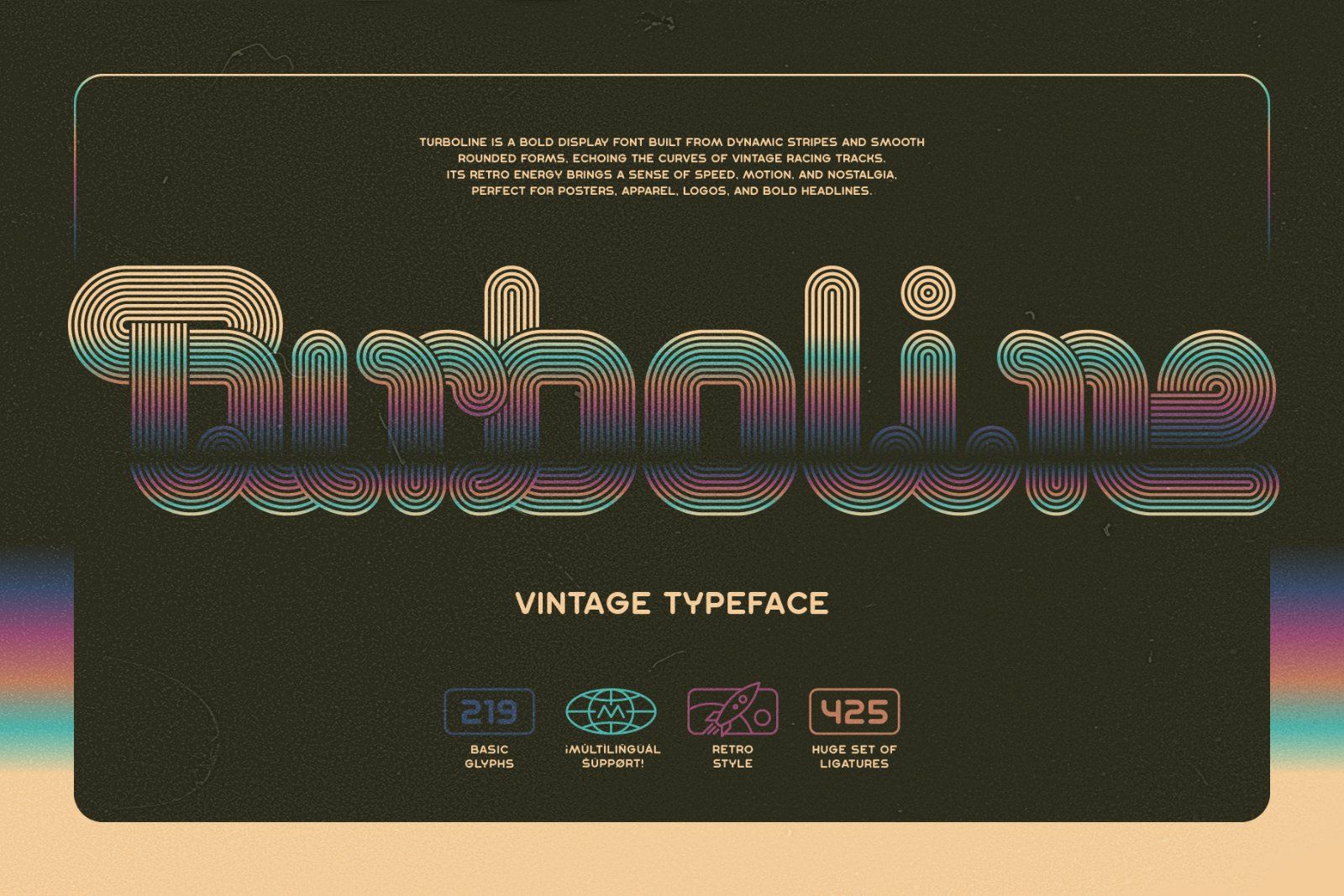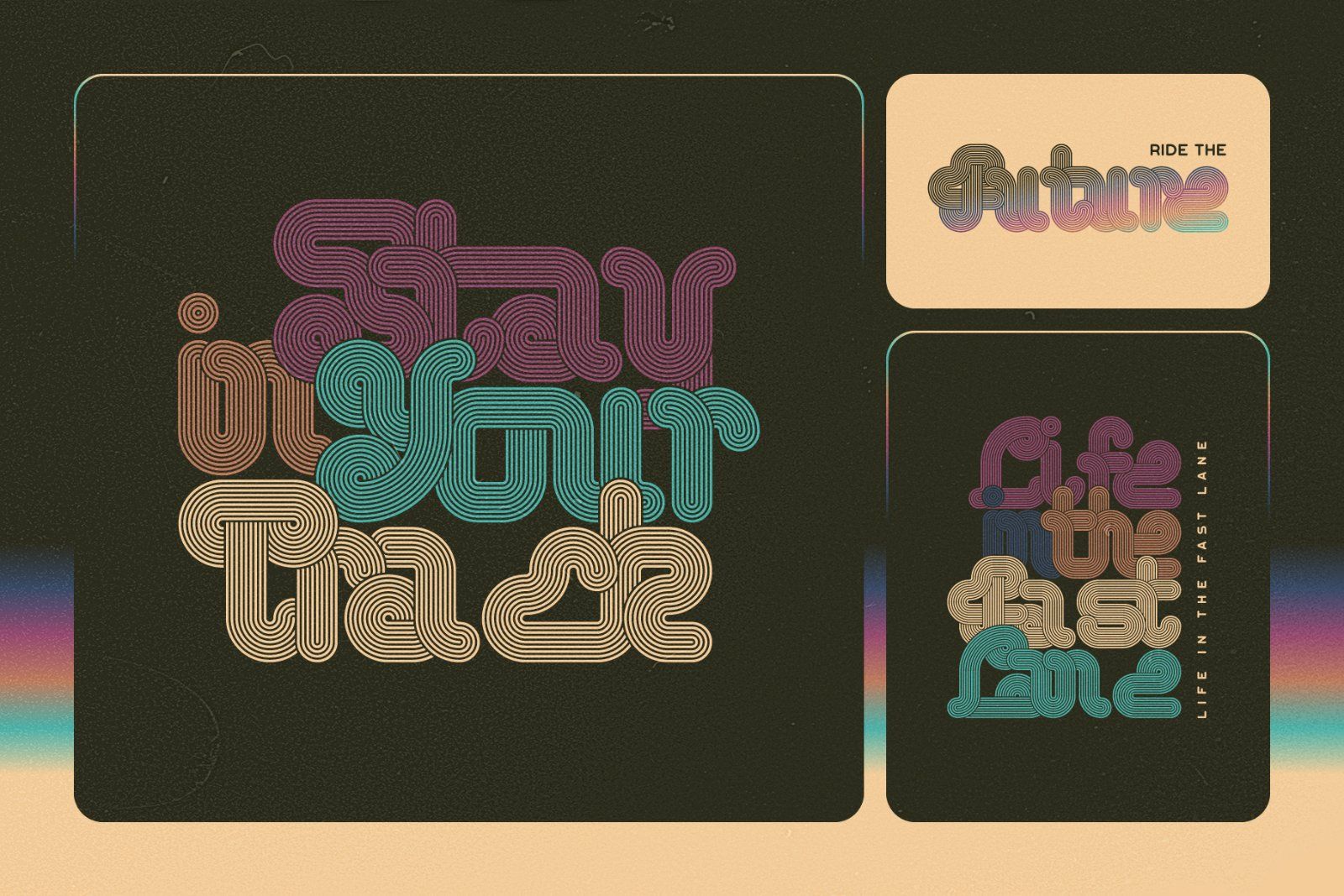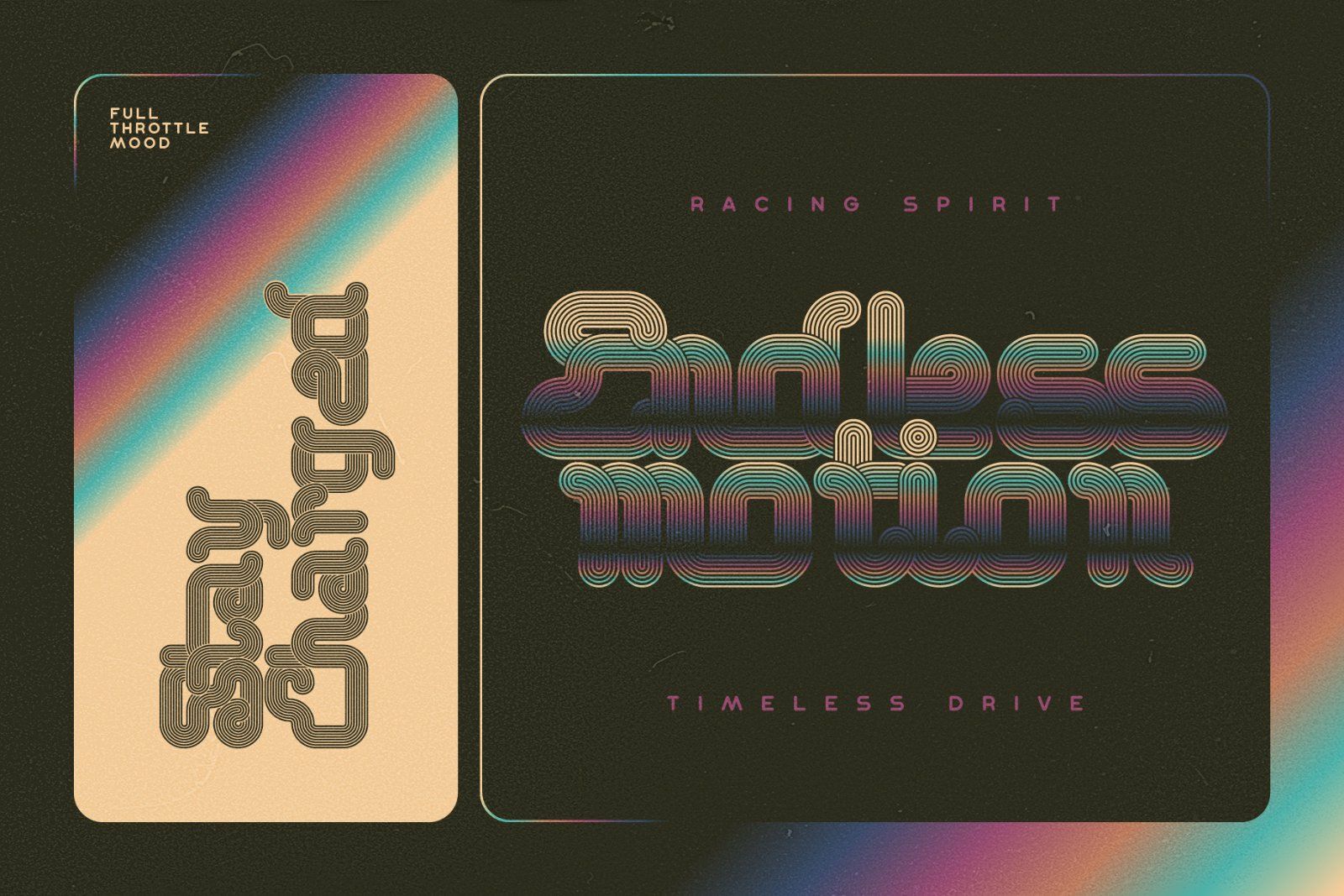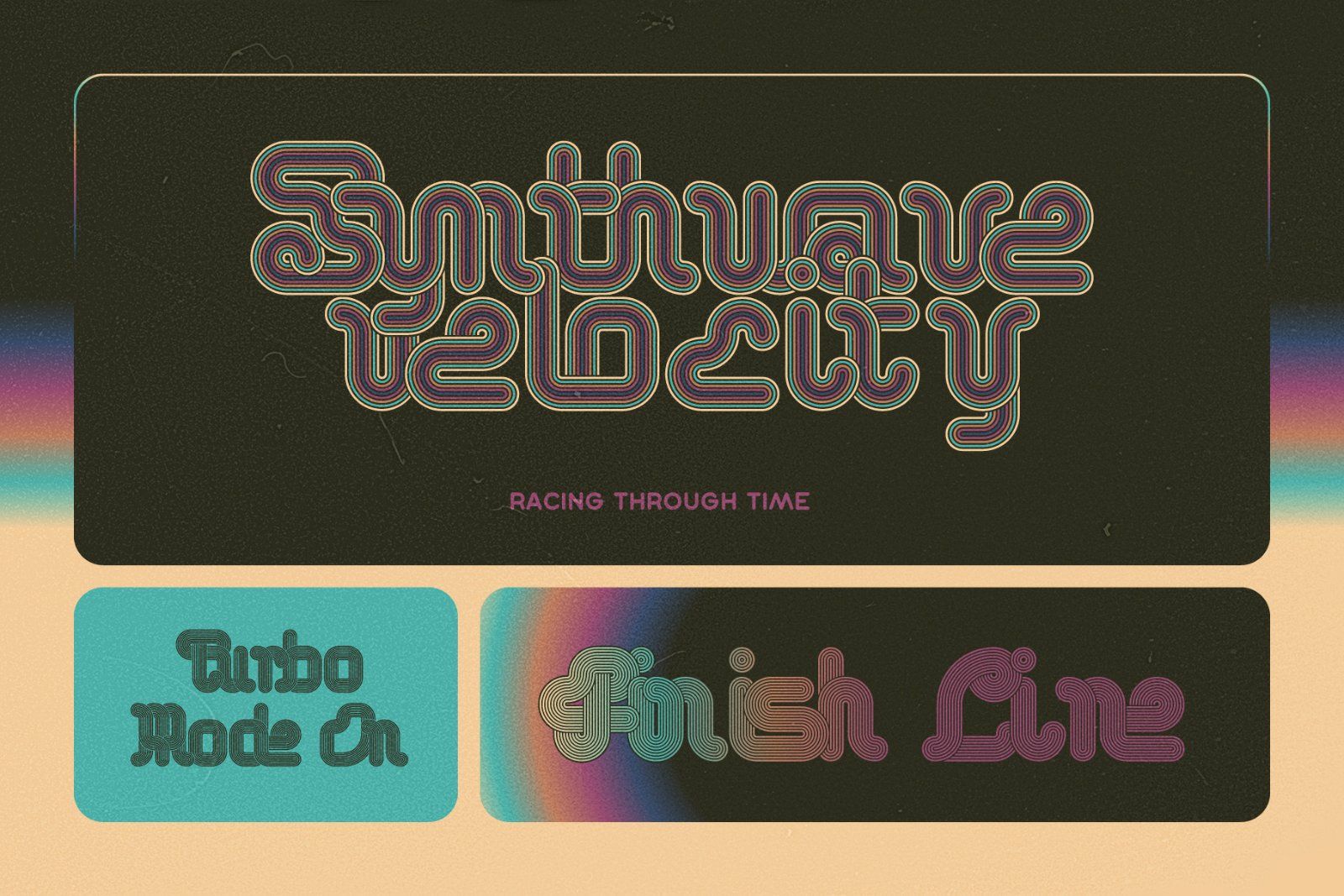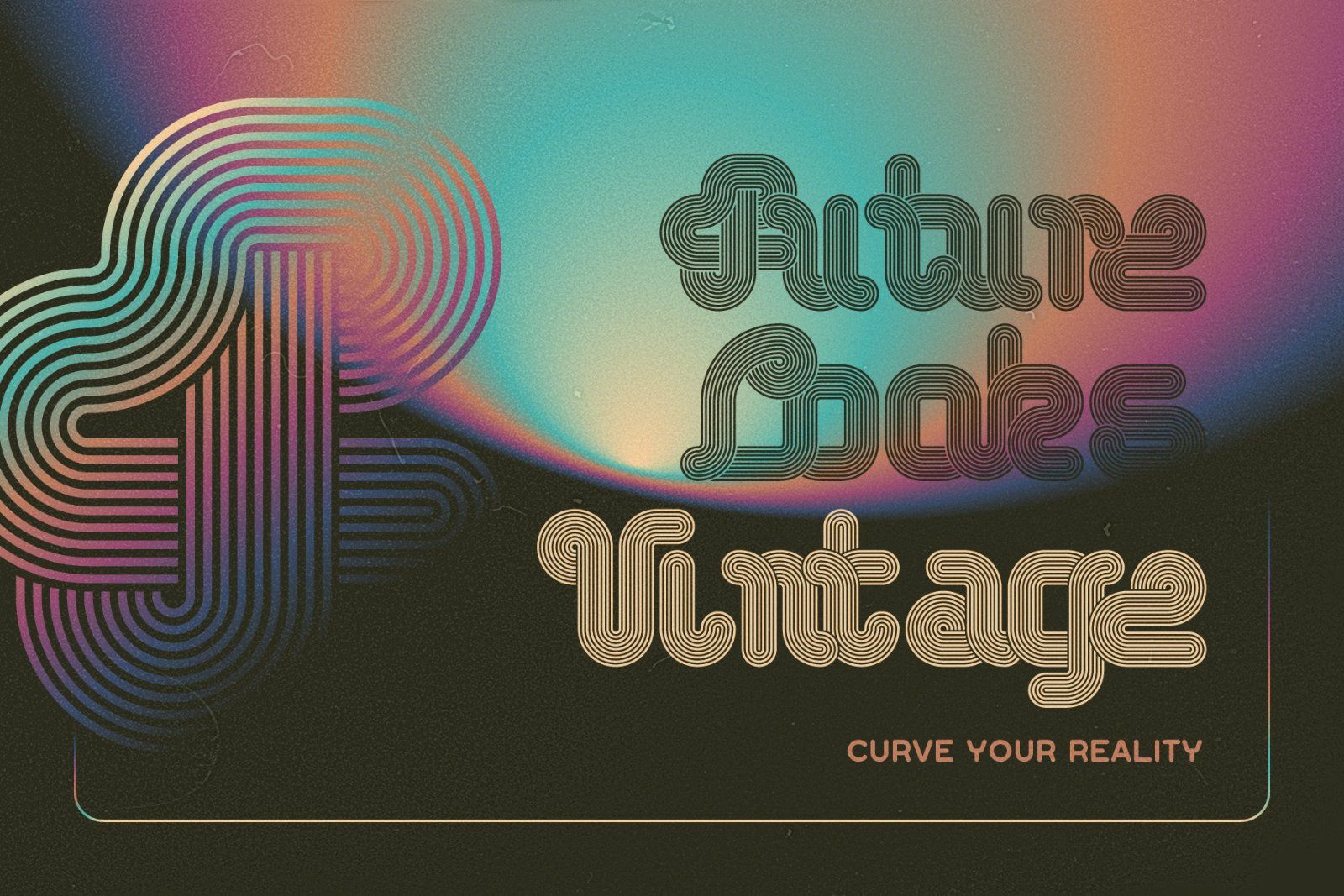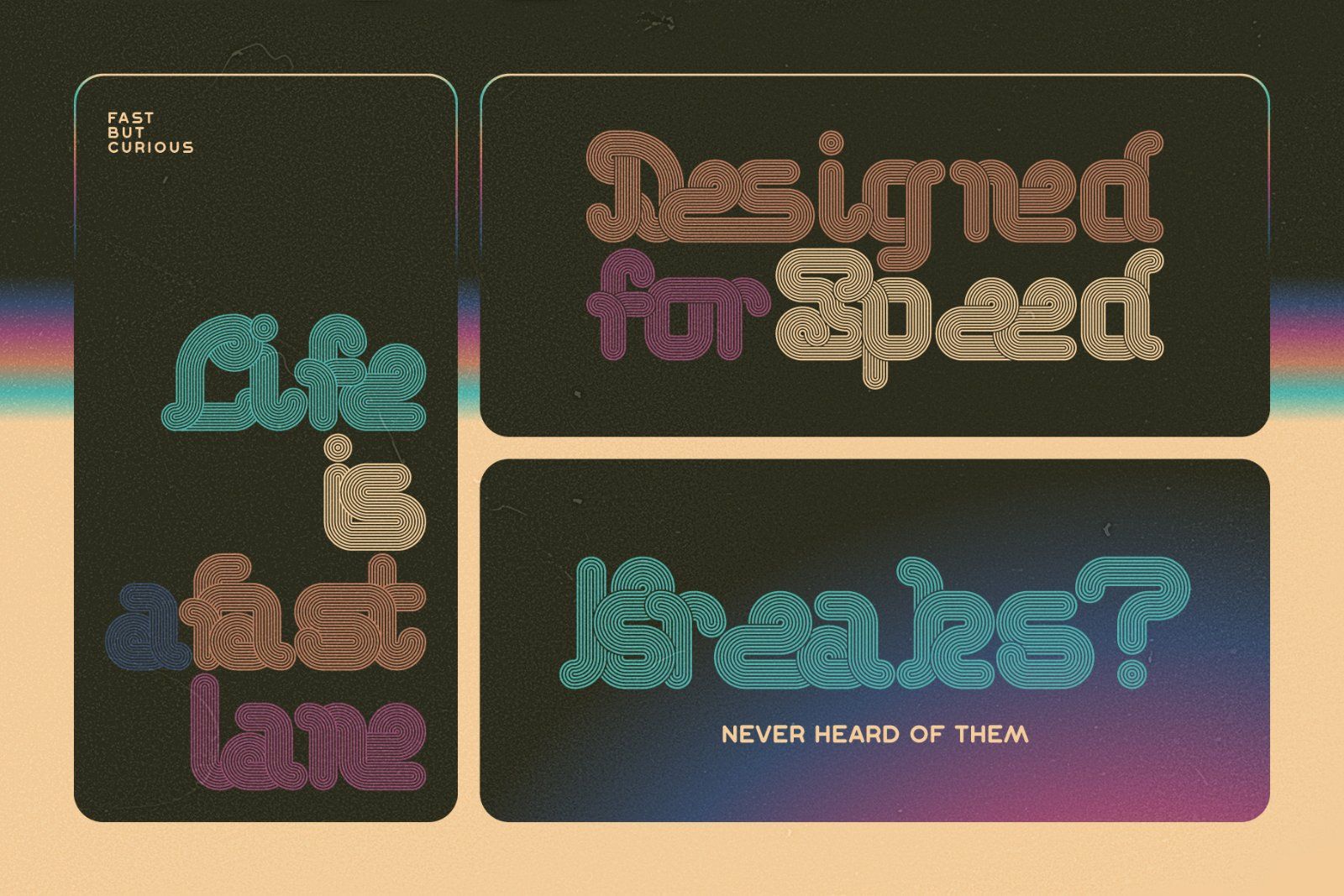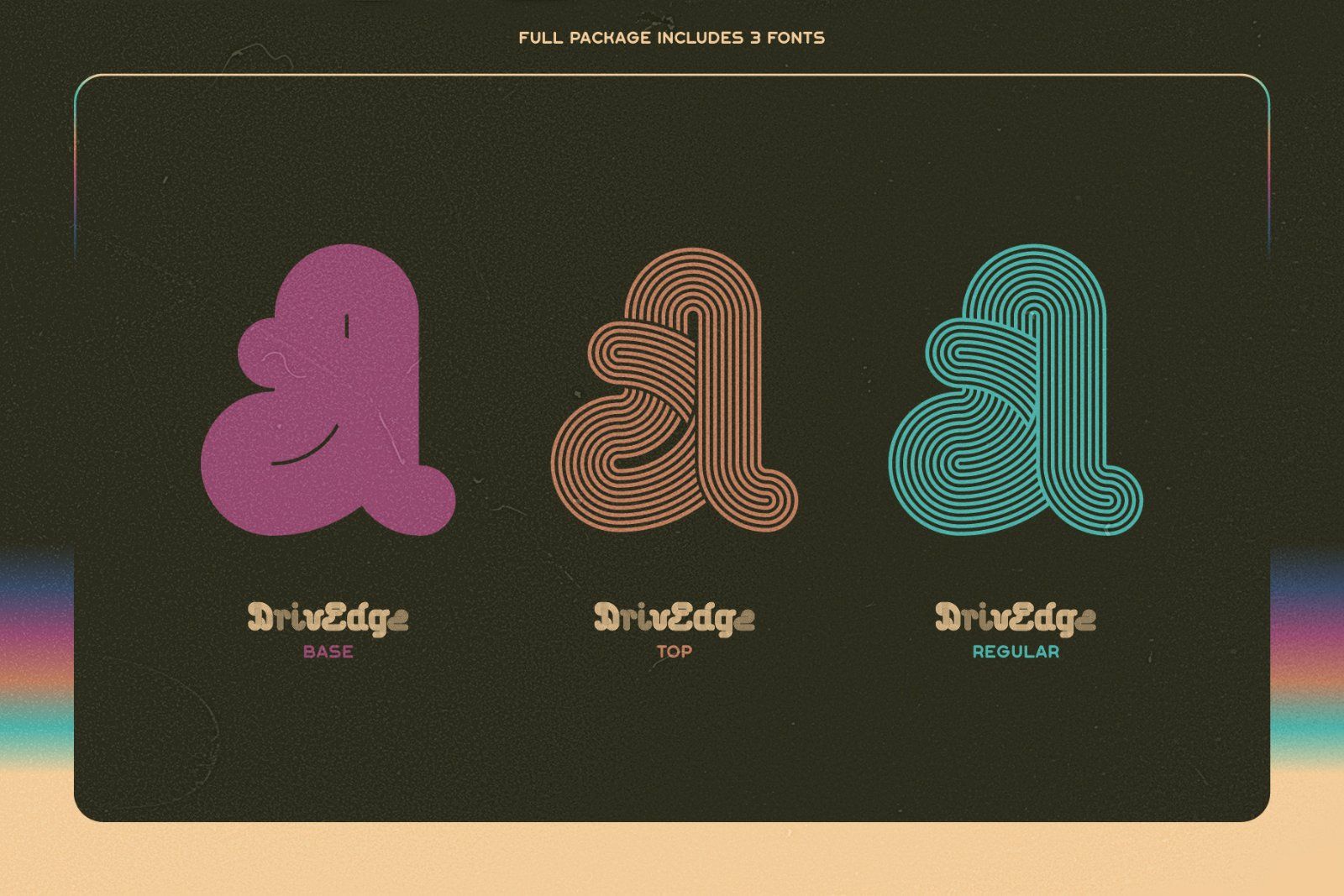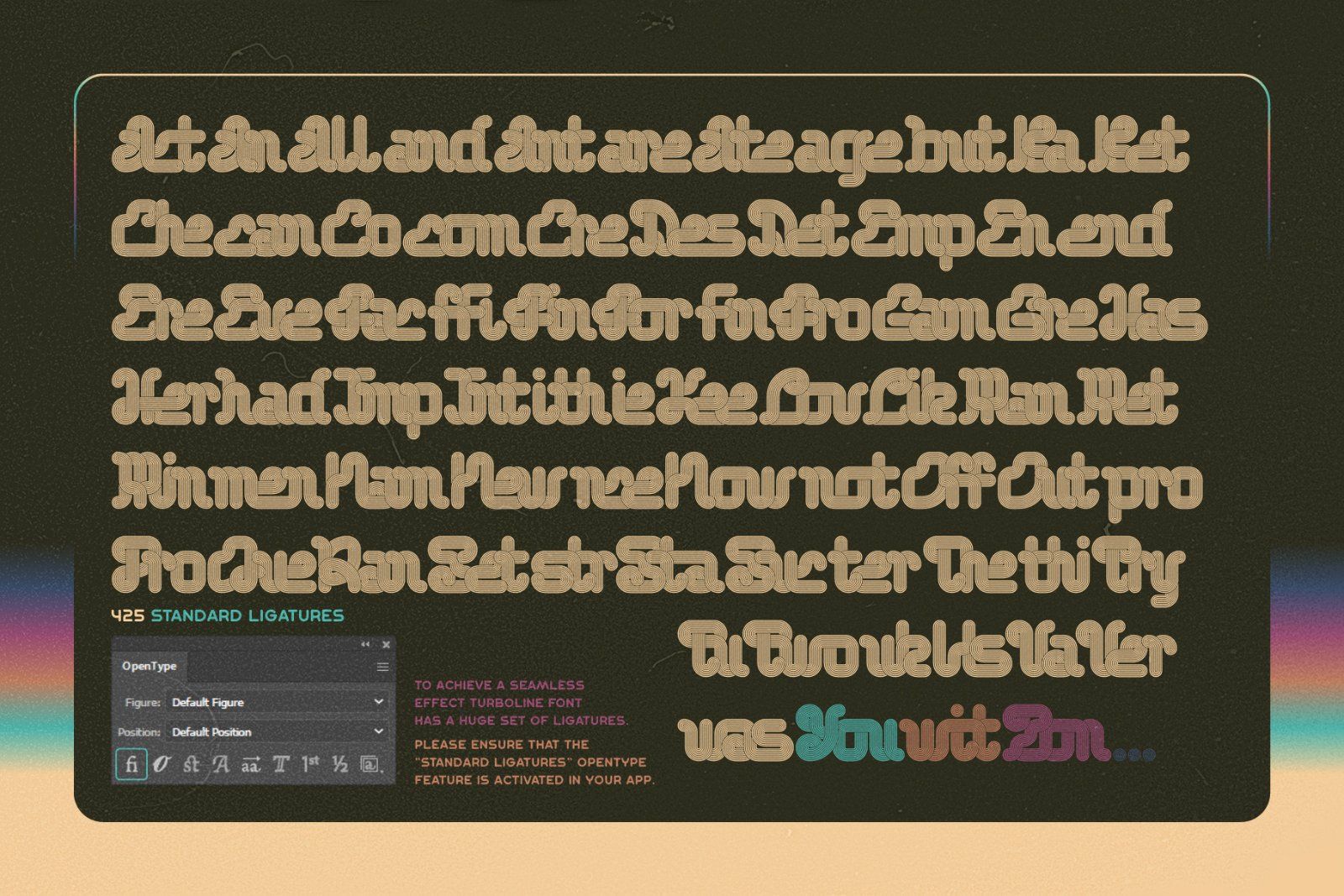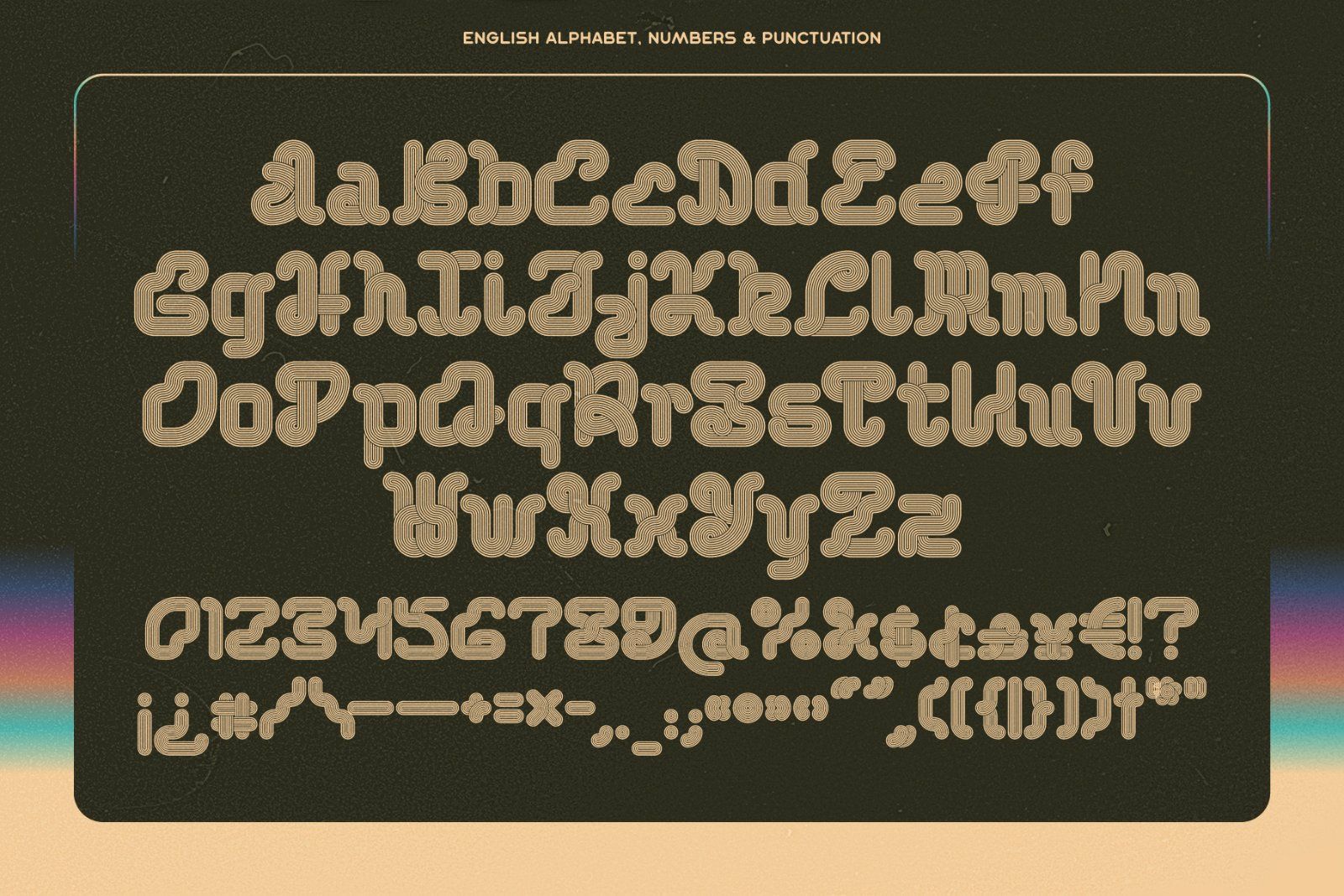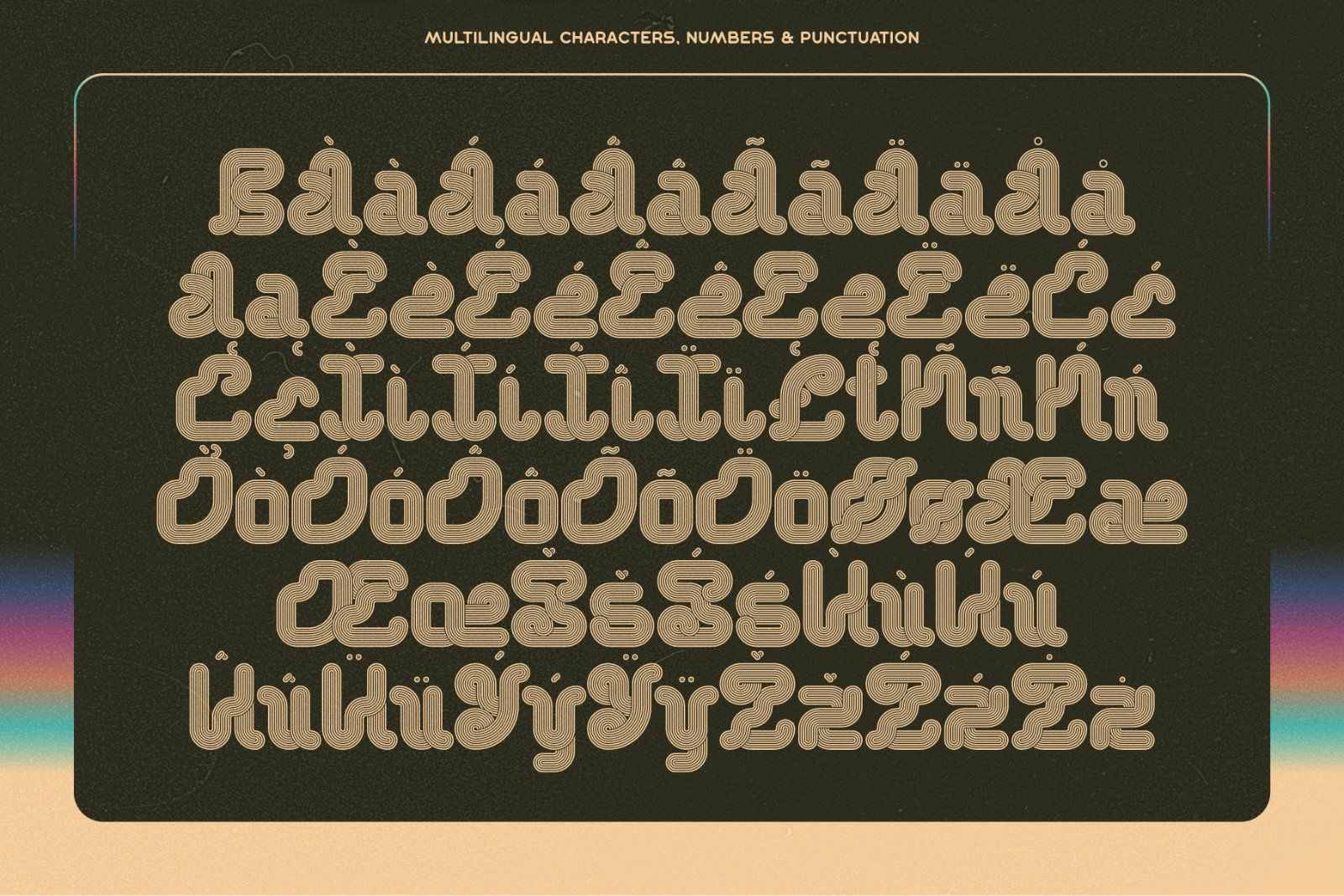
MarketplaceFontsTurboline Vintage Font
Turboline is a bold display font built from dynamic stripes and smooth rounded forms, echoing the curves of vintage racing tracks.
Its retro energy brings a sense of speed, motion, and nostalgia, perfect for posters, apparel, logos, and bold headlines.
To achieve a seamless effect Turboline font has a huge set of ligatures, please ensure that the "Standard Ligatures" OpenType feature is activated in your app.
Turboline font supports most European languages, refer to the screenshots to view full set of available characters.